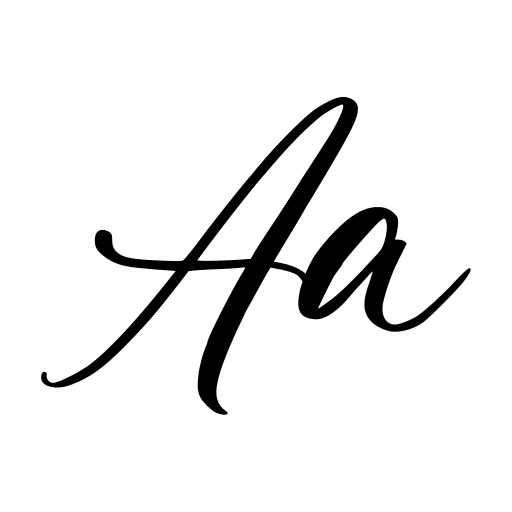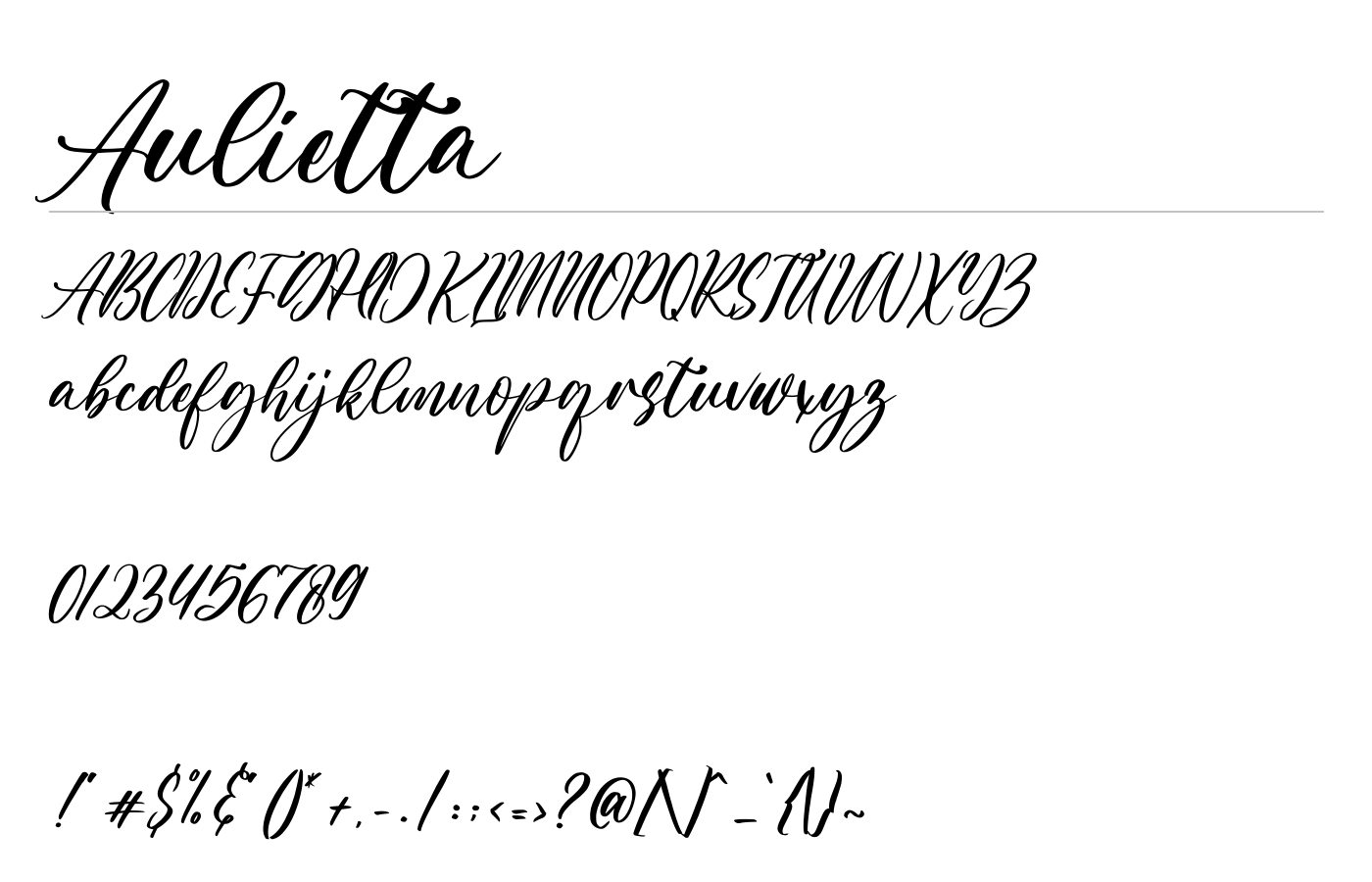
Aulietta is an elegant, script-style font characterized by its fluid, handwritten strokes and medium contrast between thick and thin lines. Its refined, calligraphic letterforms with sweeping curves and distinctive flourishes make it perfect for conveying sophistication and charm, ideal for wedding invitations, luxury branding, and stylish headlines. This font’s graceful personality and delicate detailing enhance any design that seeks a romantic and personal touch.
Aulietta Font